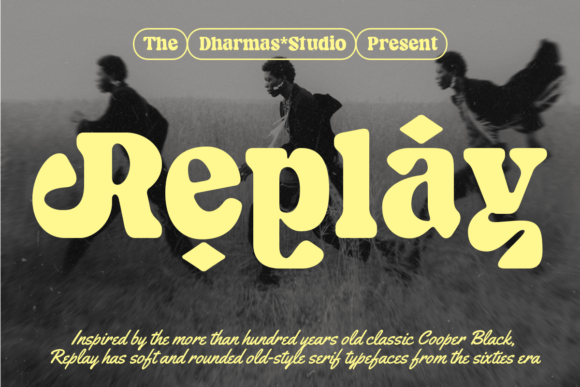
Prepare yourself to be captivated by Replay Font, a retro-styled serif display font that will transport you back to the swinging sixties. Its distinctive charm and sophisticated characteristics are an open invitation to create captivating, elegant designs that speak volumes. With Replay Font, your creative potential knows no bounds.
Replay Font is not just another font; it's a passport to a world of creativity and self-expression. Its PUA encoding makes accessing all the stunning glyphs and ligatures a breeze, empowering you to add depth and character to your designs with minimal effort. Unleash your imagination and let Replay Font guide you towards masterpieces that resonate with your audience.
Picture this: you're crafting an ebook cover that oozes sophistication and timeless appeal. Replay Font, with its graceful curves and bold serifs, takes center stage, captivating readers with its vintage allure. Or perhaps you're designing a Canva template that demands attention. Replay Font's retro charm blends seamlessly with modern elements, creating a cohesive and visually striking design.
Replay Font isn't just a font; it's a versatile tool that adapts to your creative vision. Whether you're designing logos, posters, branding materials, or social media graphics, Replay Font rises to the occasion, adding a touch of retro elegance that sets your work apart. Its unique style commands attention, inviting viewers to delve deeper into your designs and discover the stories they hold.
Join the ranks of creative professionals who have harnessed the power of Replay Font to elevate their designs. Let its timeless appeal transport your audience to a bygone era while keeping them firmly rooted in the present. With Replay Font as your creative companion, the possibilities are endless. Embrace the retro revolution and let your designs shine with a touch of nostalgia and sophistication.